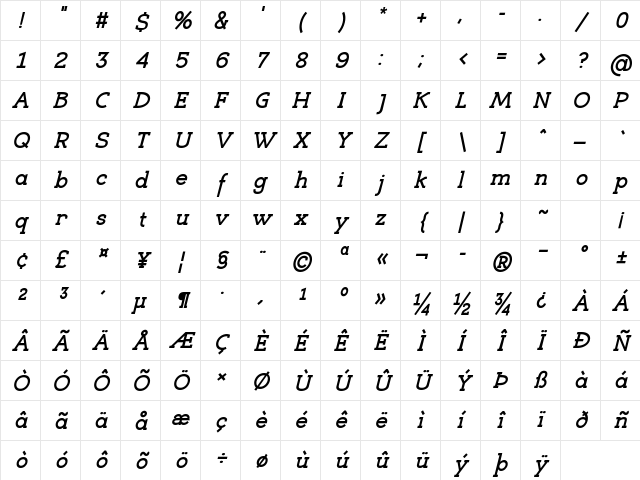
Eligible Bold-Italic
Design Context for Eligible
Eligible is a composed and adaptable typeface that performs quietly and consistently across a wide range of design contexts. The slanted form adds forward momentum and visual energy. Its bold stroke weight gives it real presence on the page.
Pro Tip: Use Eligible for emphasis, pull quotes, and subheadings where its slanted energy can add rhythm to the layout.